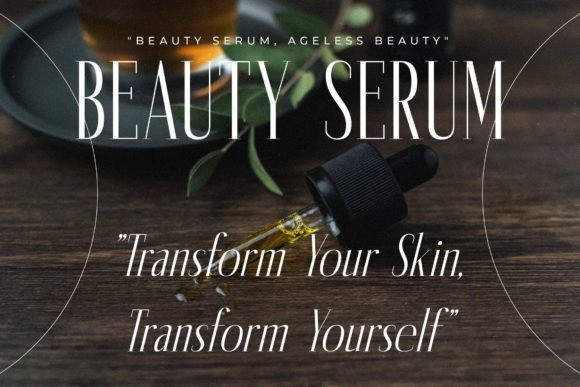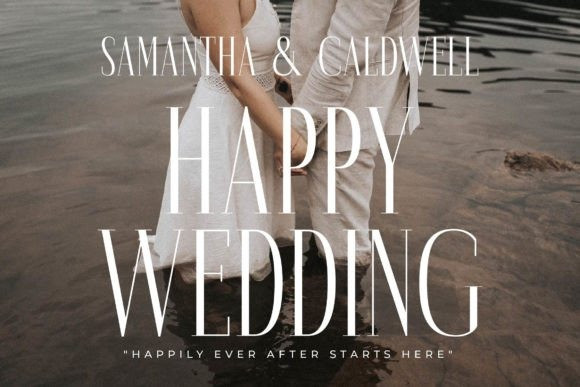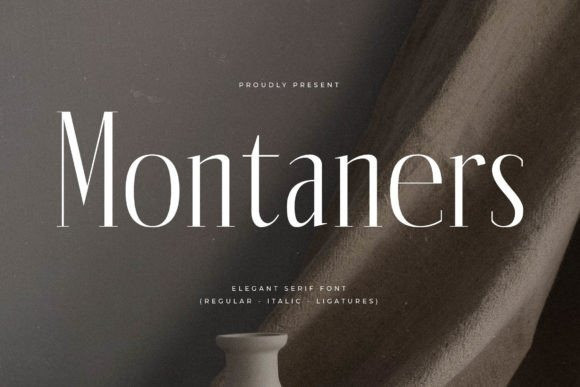
Montaners Font
Montaners Font is a modern and classic serif typeface that has its own unique style & modern look. It is perfect for an elegant & luxurious logo, book or movie title design, fashion brand, magazine, clothes, lettering, quotes, and so much more.